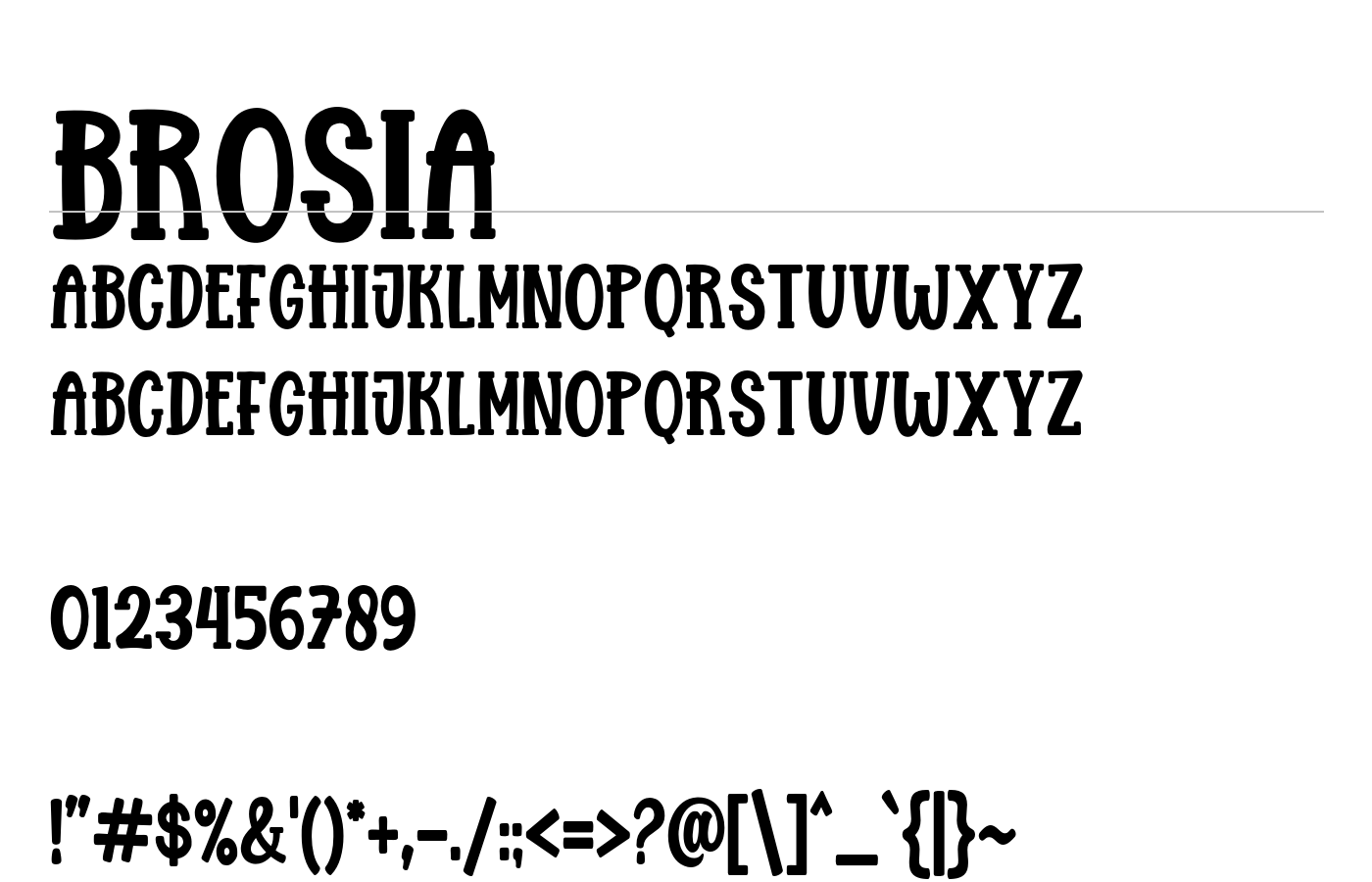
Brosia is a bold, condensed slab serif font with a playful yet vintage feel. Its strong vertical lines, rounded slab serifs, and slightly uneven letterforms give it a handcrafted, quirky character that works great for headlines, logos, and creative packaging. This font is perfect for brands wanting a distinctive retro style with a friendly and approachable personality.
Brosia Font
About Brosia Font
| Font family | Brosia Font |
| Designer | Rangga Singgih Subekti |
| Trademark | Subectype |